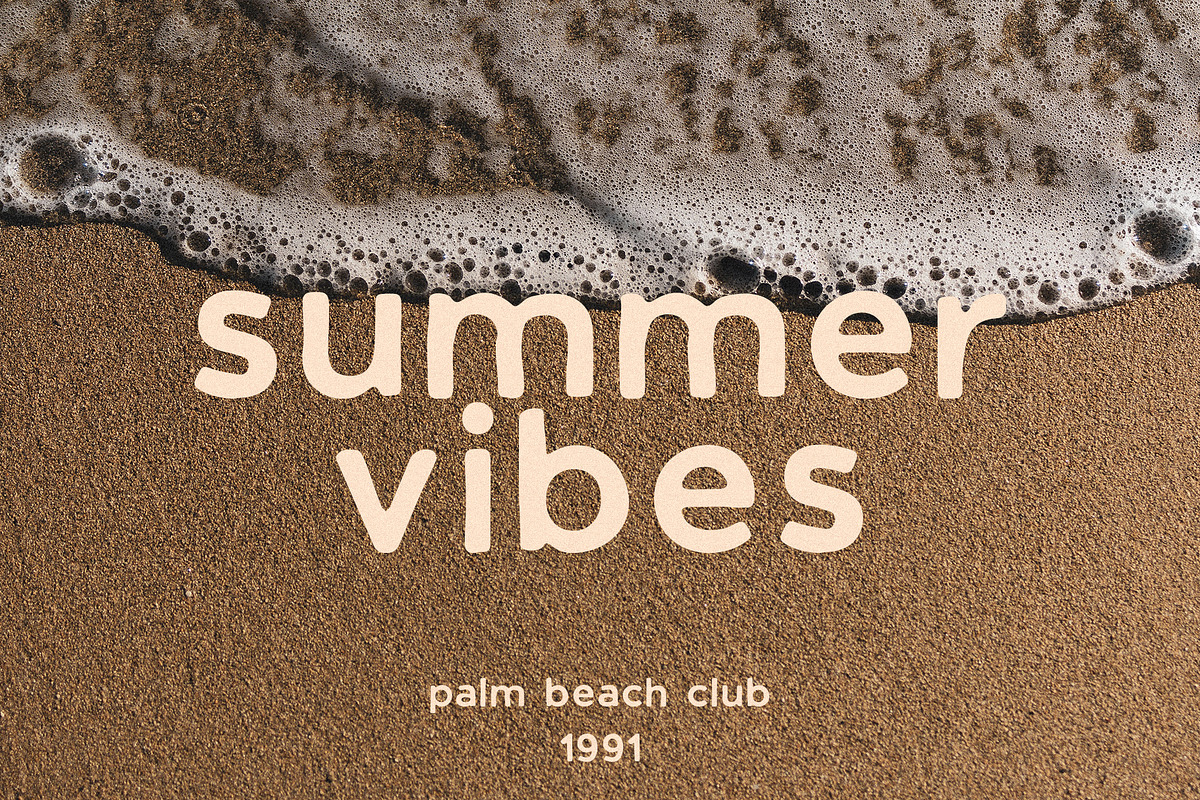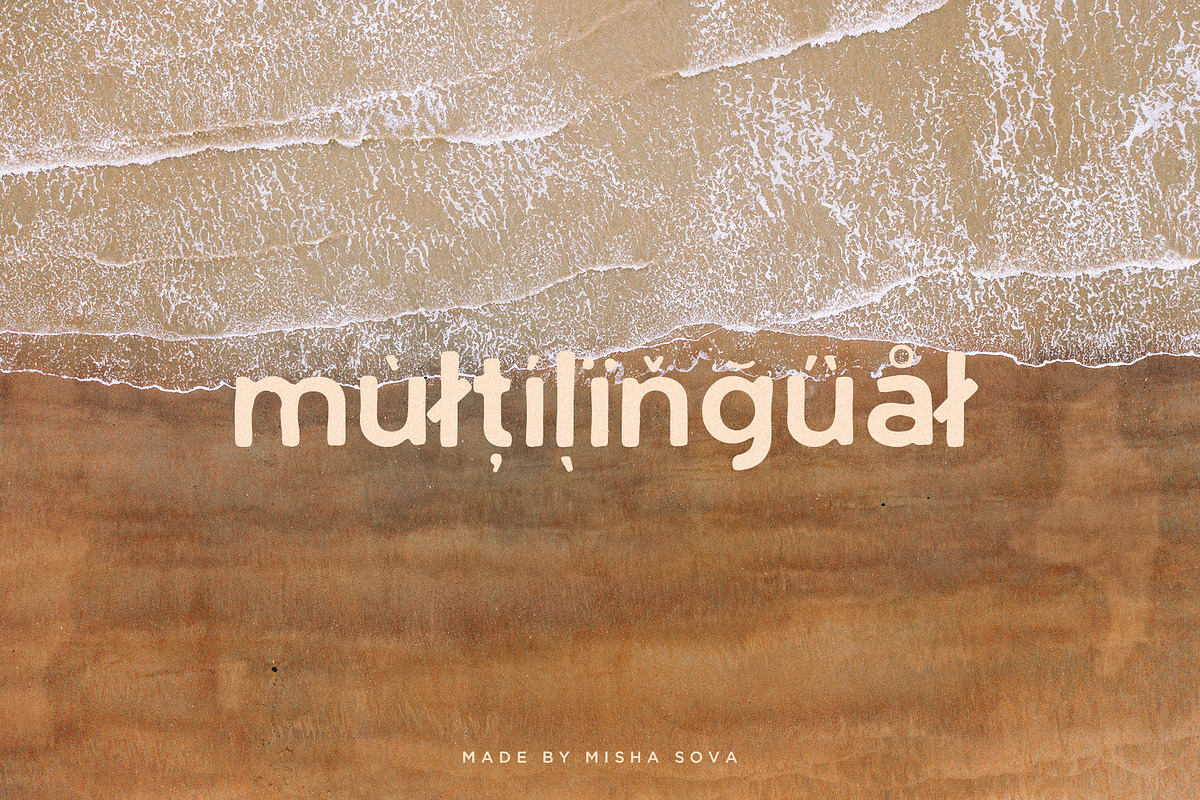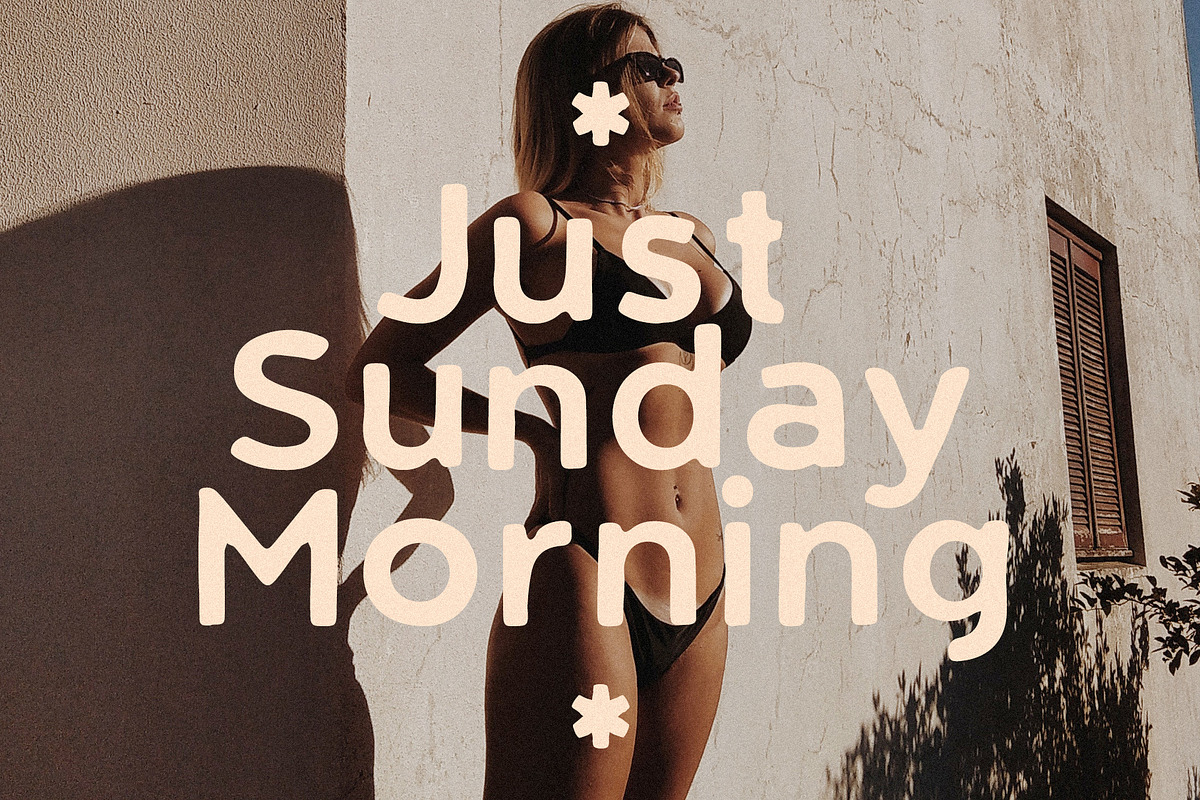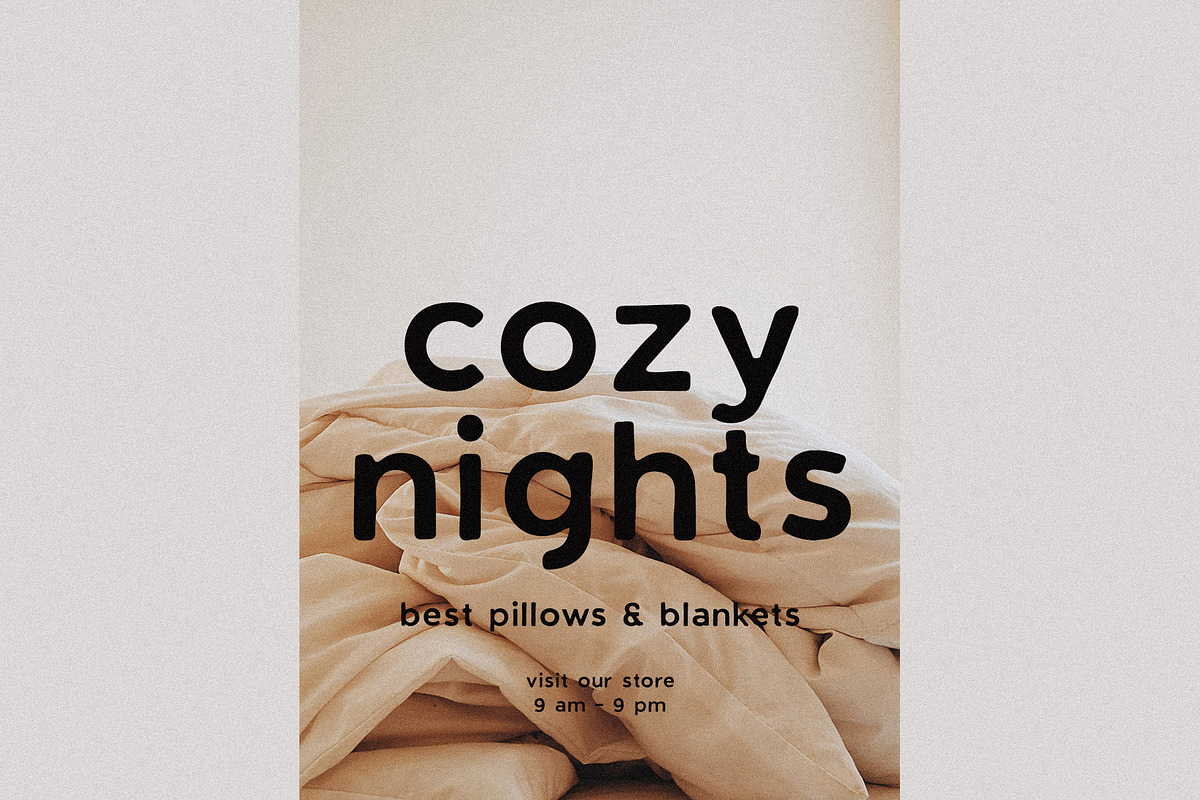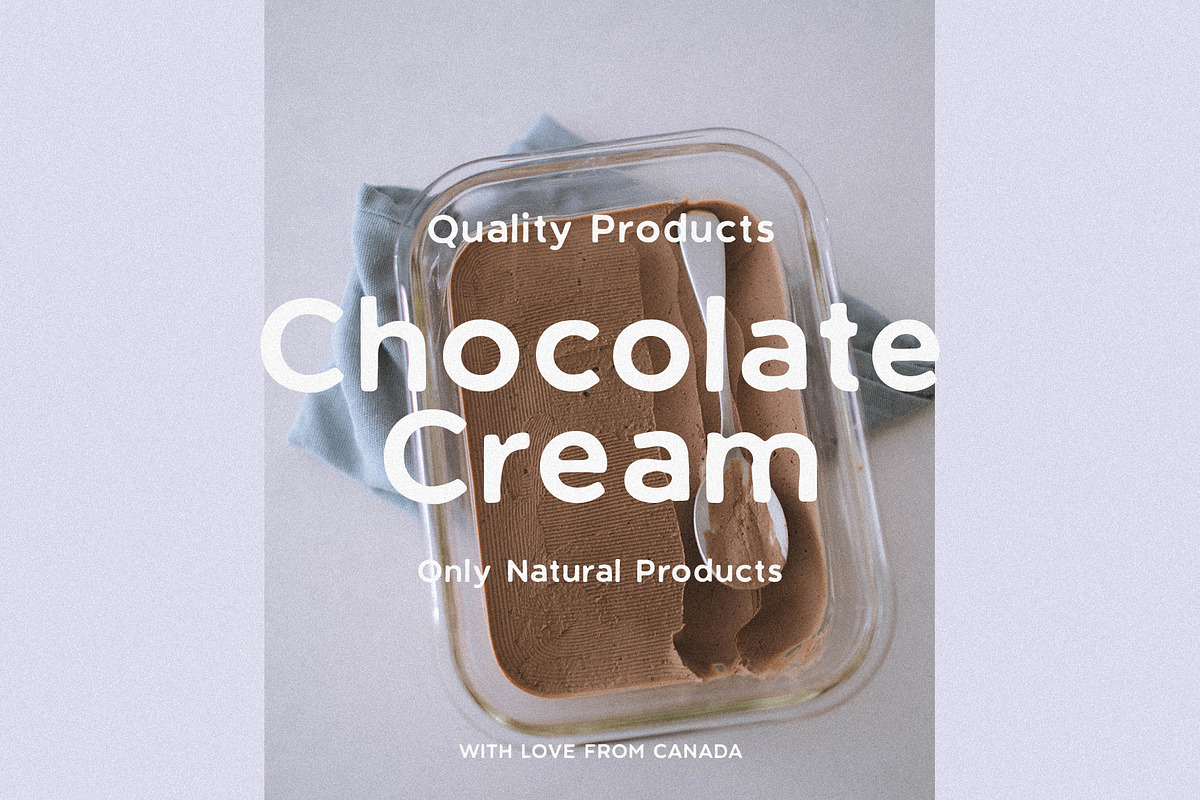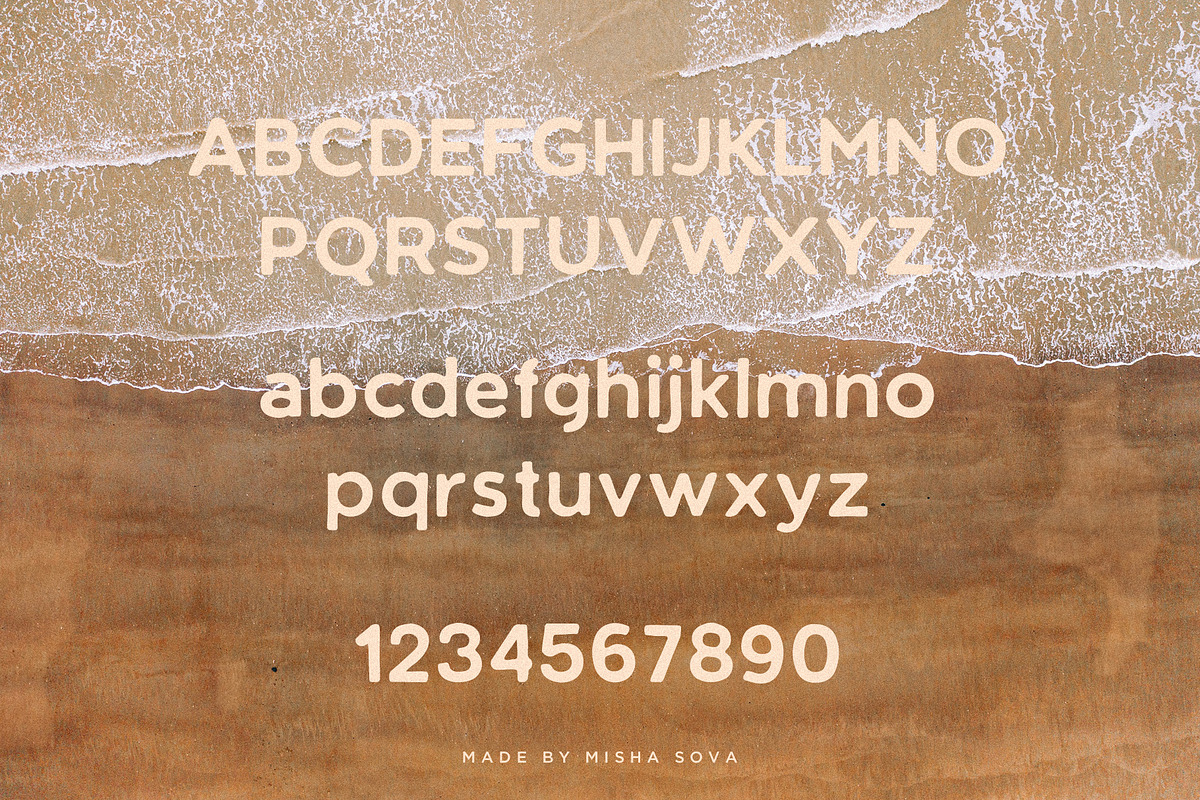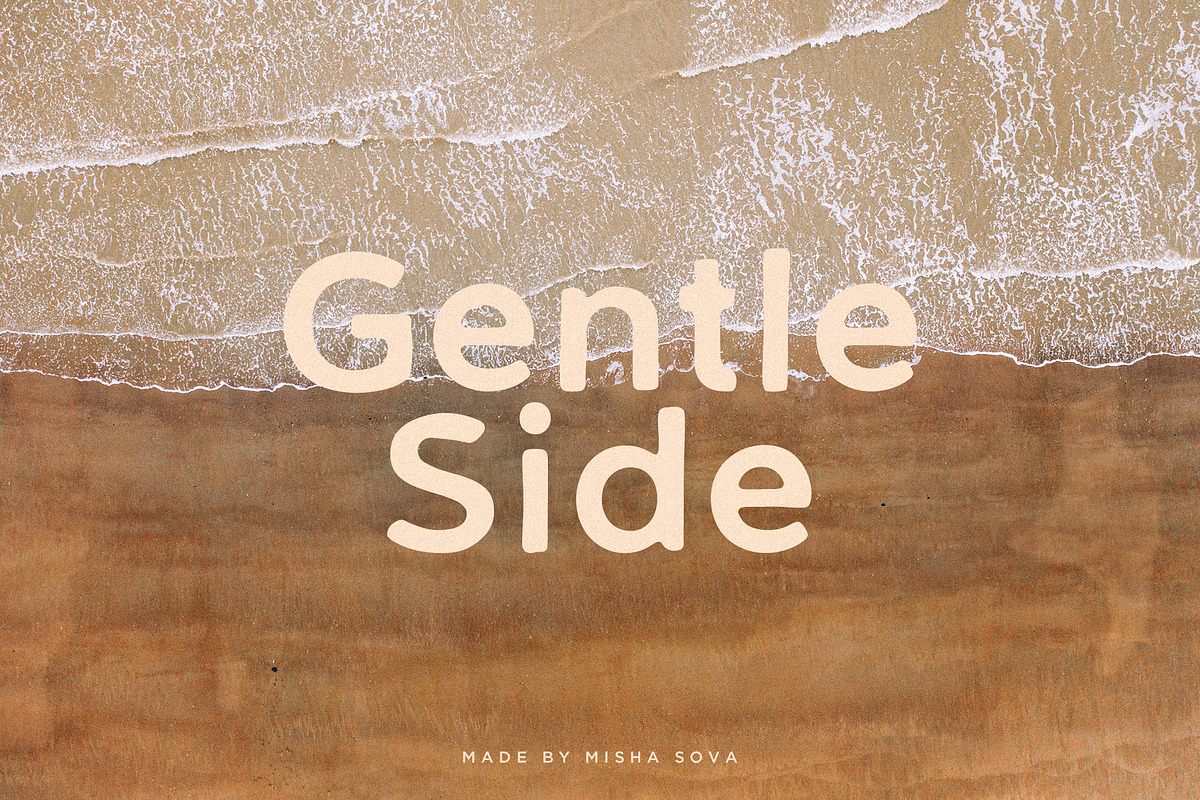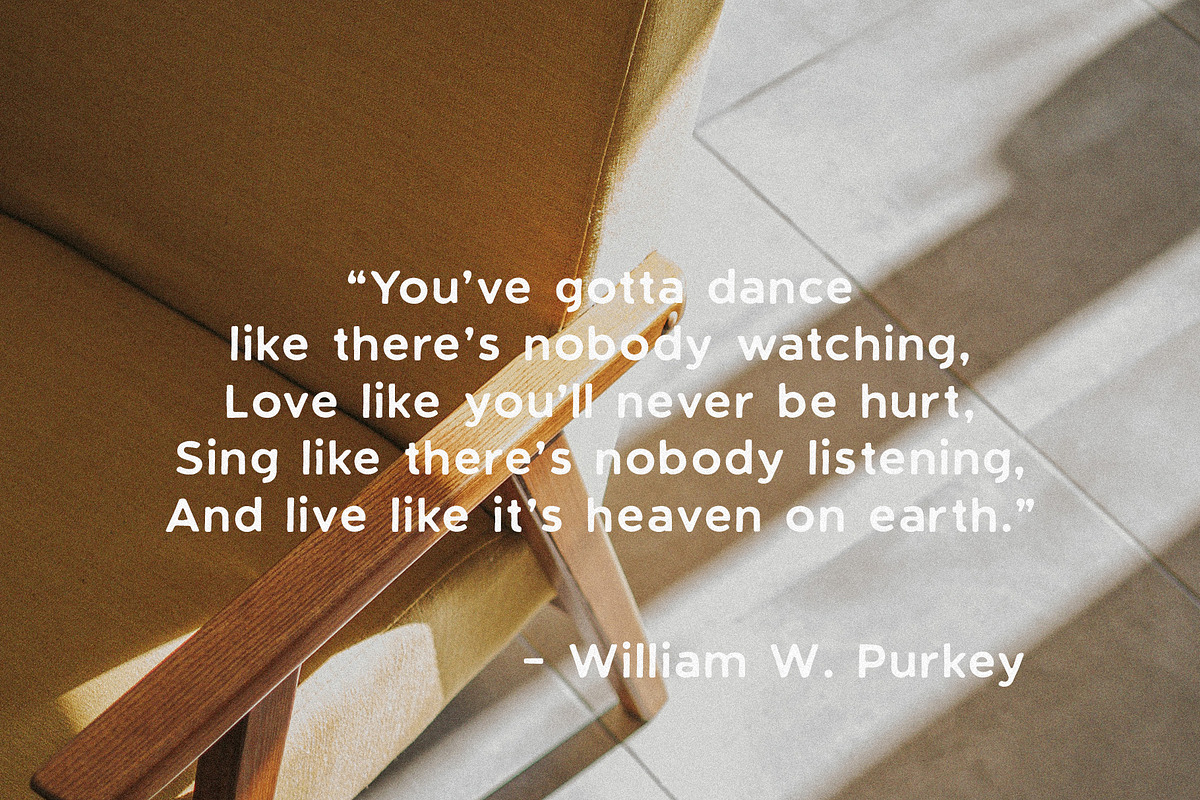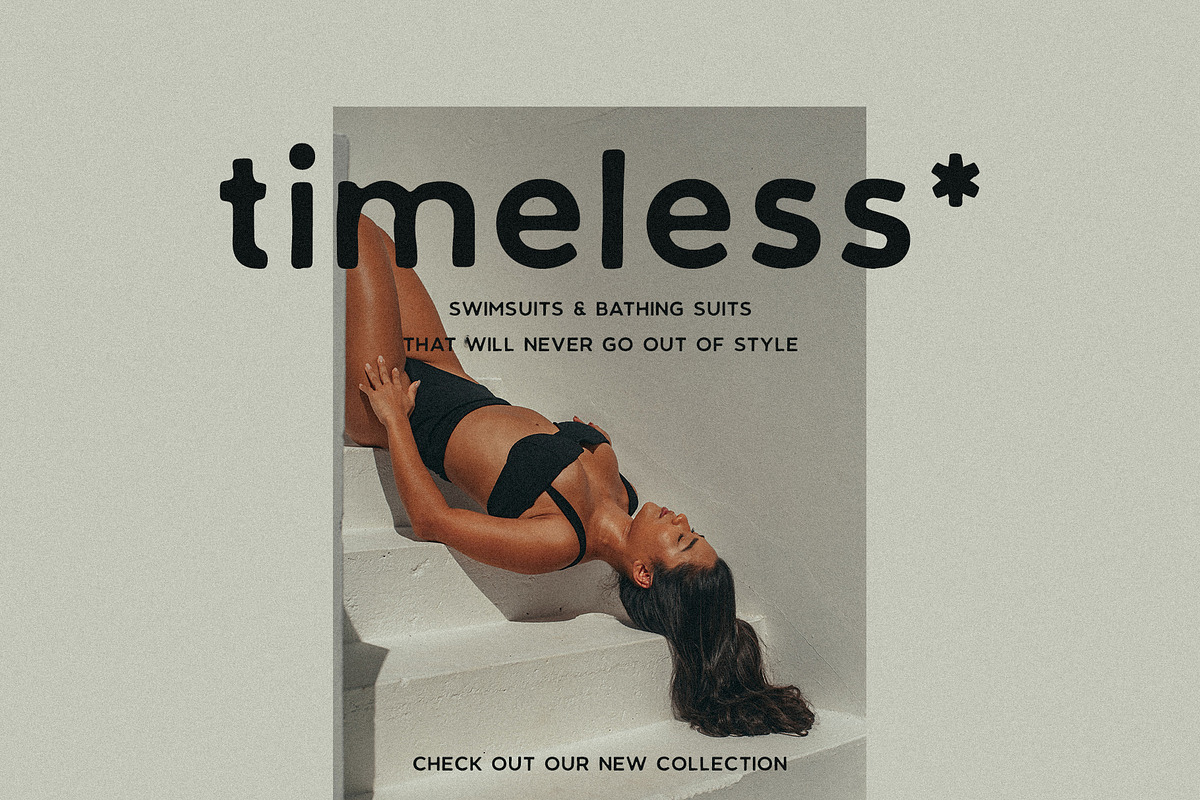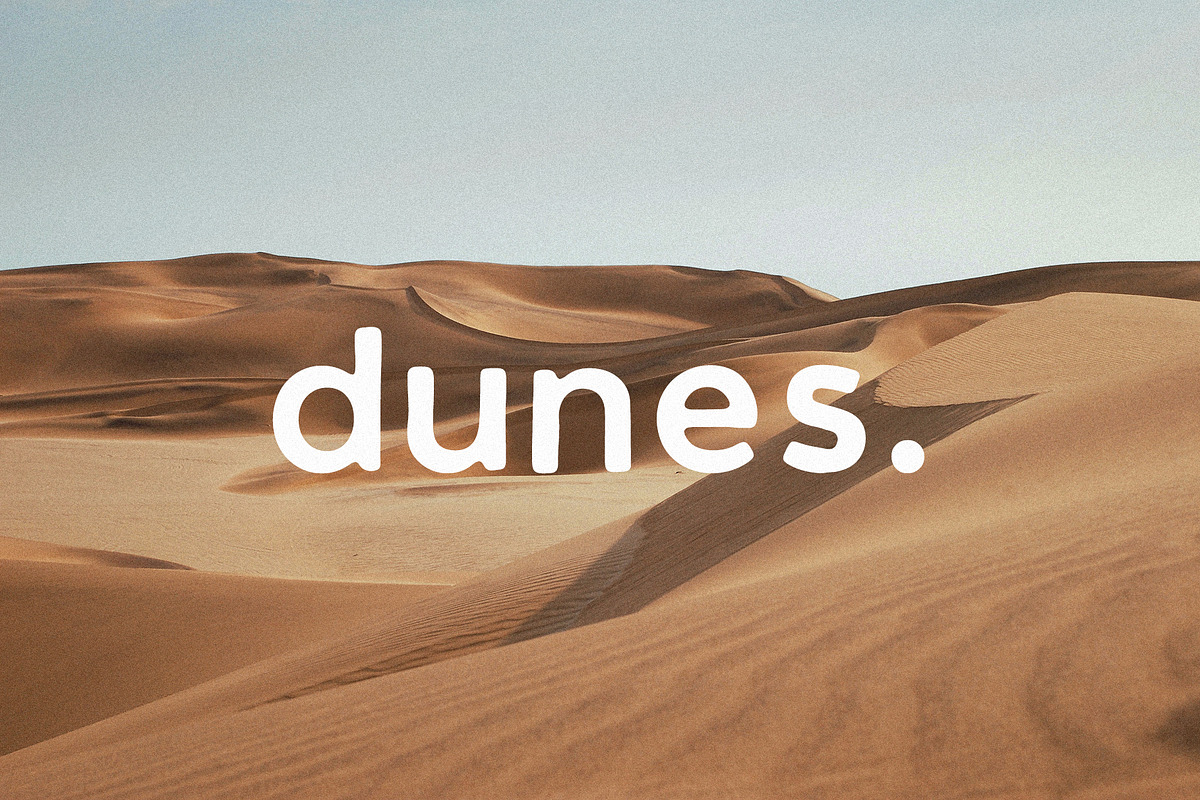
Gentle Side - modern & vintage sans
Gentle Side - modern & vintage sans by Misha Sova
Introducing Gentle Side a modern & vintage sans serif font that stands out with its distinctive shape. This font effortlessly blends classic charm with a contemporary touch, making it an ideal choice for a variety of design projects. Whether you're working on logos, branding materials, or invitations, this font adds a nostalgic and timeless feel. Its versatility ensures a seamless experience across both digital and print media, allowing you to create visually captivating designs. Embrace the timeless allure of Gentle Side and elevate your design projects to new heights.
Gentle Side features:
- Letters
- Basic Ligatures
- More than 250 glyphs